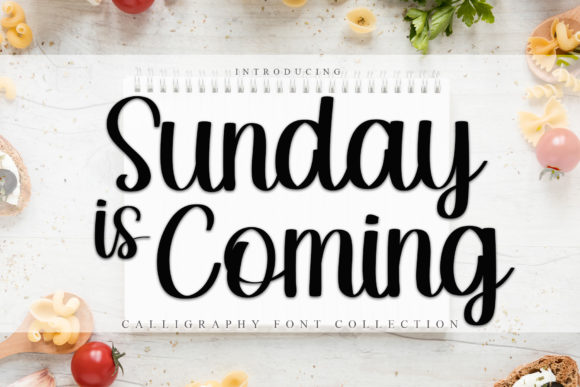
Introducing Sunday Is Coming Font - A Handcrafted Script That Will Take Your Designs to New Heights!
Step into a world of elegance and sophistication with Sunday Is Coming Font, a beautiful script font that exudes charm and delight. Lovingly crafted by Creatype Designer, this captivating font boasts a graceful flow and delicate strokes, adding a touch of heartfelt emotion to every project it graces.
Picture this: save-the-dates and wedding invitations adorned with the Sunday Is Coming Font, their letters dancing across the page like a love letter penned by a smitten heart. With its sweeping curves and playful loops, this font transforms ordinary words into works of art, capturing the joy and romance of life's most special moments.
But its allure extends far beyond the realm of weddings. Sunday Is Coming Font adds a touch of enchantment to branding materials, logos, posters, and social media posts. Its versatility knows no bounds, seamlessly adapting to any design concept, from whimsical and playful to classic and timeless.
Imagine the awe and wonder on your customers' faces as they behold your designs, each letter a testament to your attention to detail and artistic flair. Sunday Is Coming Font breathes life into your creations, turning them into captivating expressions of your brand's unique personality.
So, whether you're a seasoned designer seeking to expand your font repertoire or a creative entrepreneur yearning for a font that speaks your brand's language, Sunday Is Coming Font is your perfect companion. Embrace its graceful charm and watch your designs flourish with newfound elegance and sophistication.